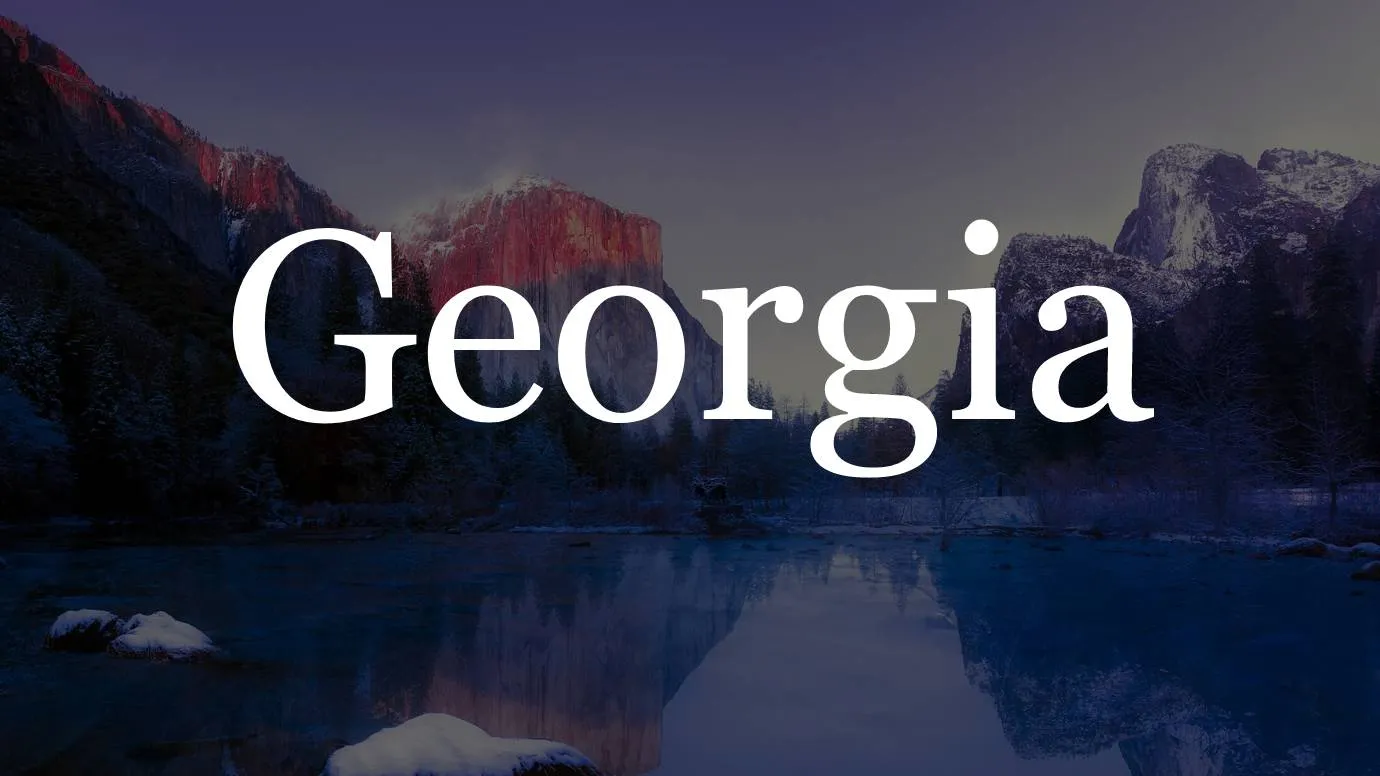
Georgia Font Family belongs to the Serif font family. A British designer named Mather Care in the year 1993 created this font. This font was specially designed for Microsoft and it is still available in the Microsoft font library.
This font is similar to the Times New Roman Font, but this font has a better display on screens and The New York Times changed its standard for Times New Roman with this font in 2007.